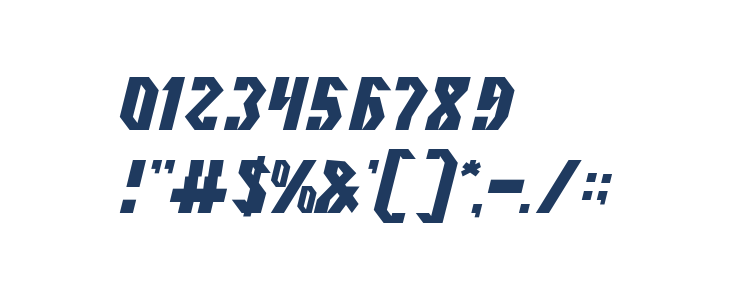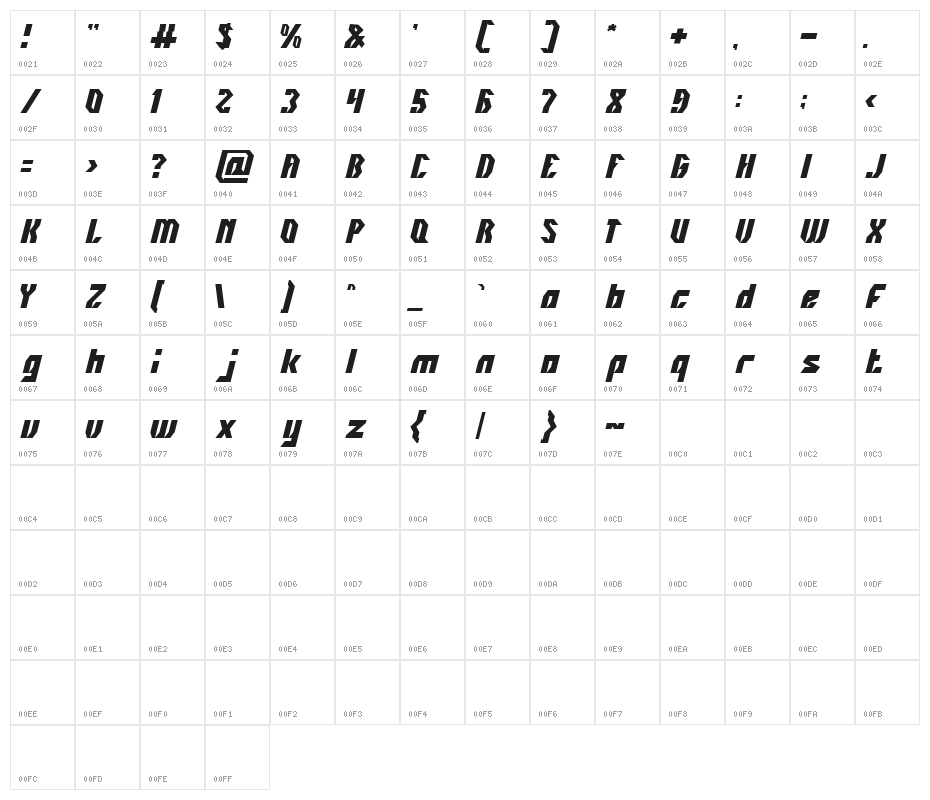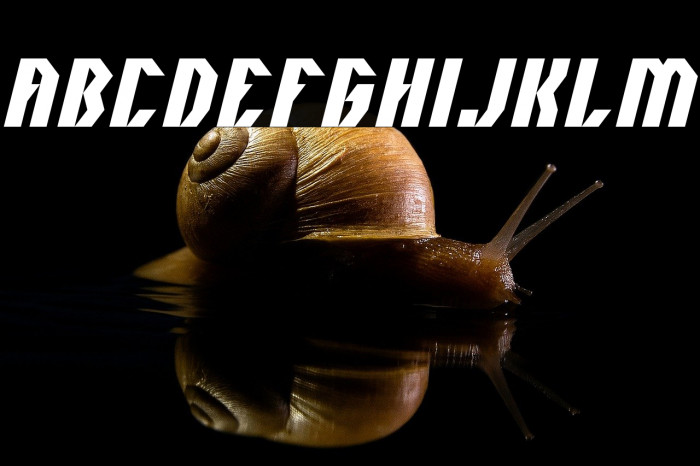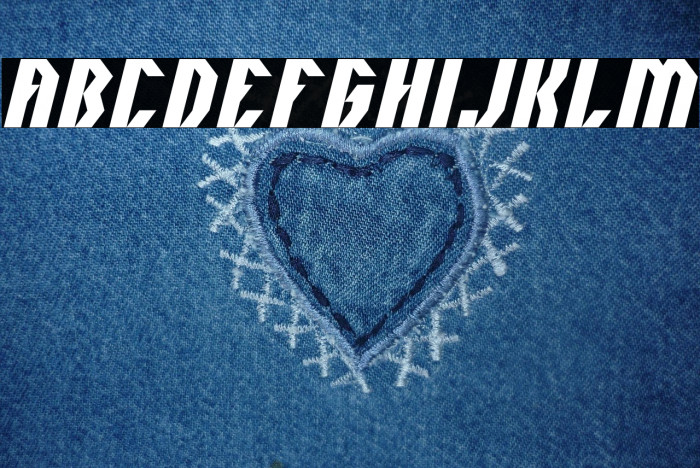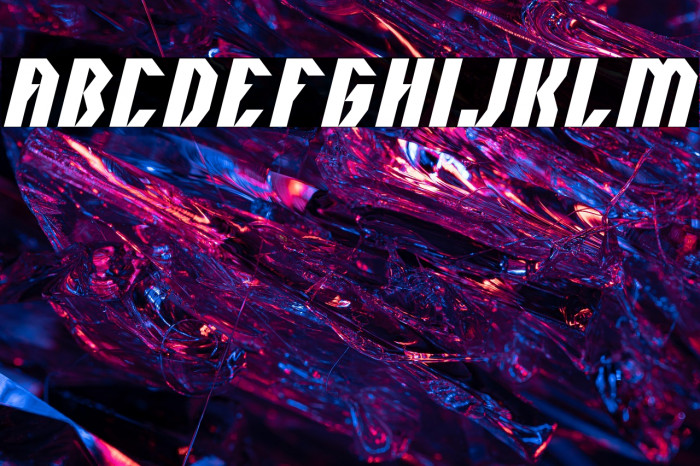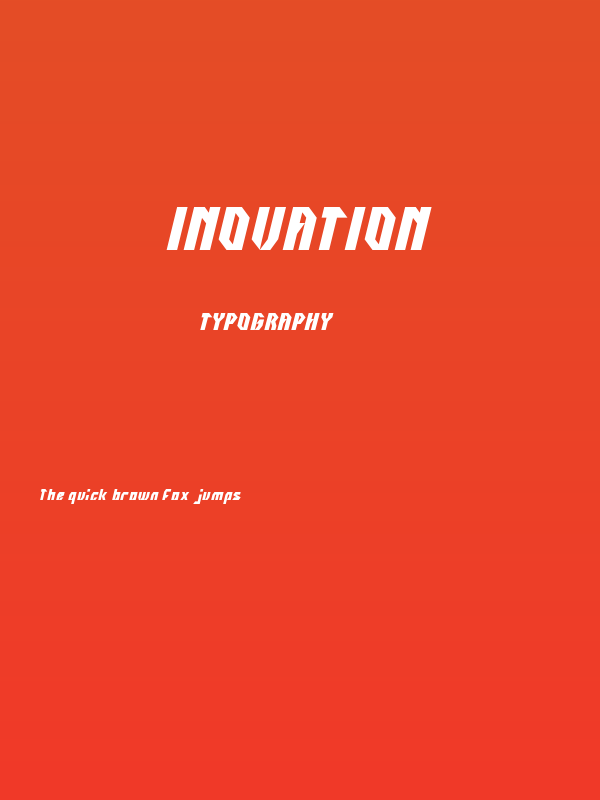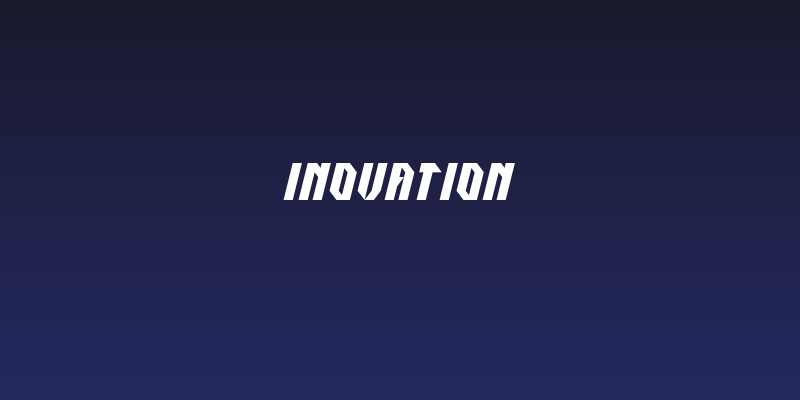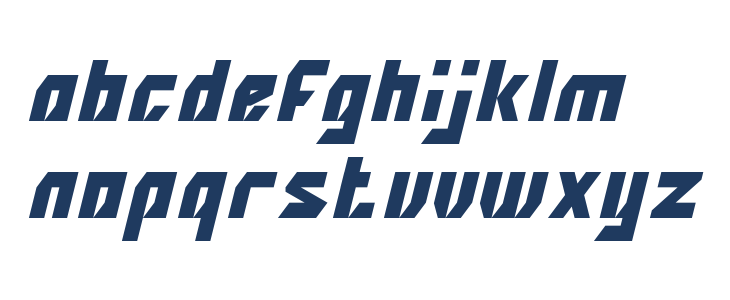
INOVATION Font
INOVATION Description
This font features a bold and angular design, characterized by sharp edges and a dynamic, forward-leaning stance. The letters are constructed with a geometric precision, giving them a futuristic and edgy appearance. The uppercase and lowercase letters maintain a consistent style, with the lowercase slightly more compact. Numbers and special characters follow the same angular theme, ensuring uniformity across all glyphs. The font's unique style makes it stand out, suitable for projects that require a modern and impactful visual statement.
| Proposed Projects | Ideal for branding, posters, video game titles, and any project needing a modern, impactful look. |